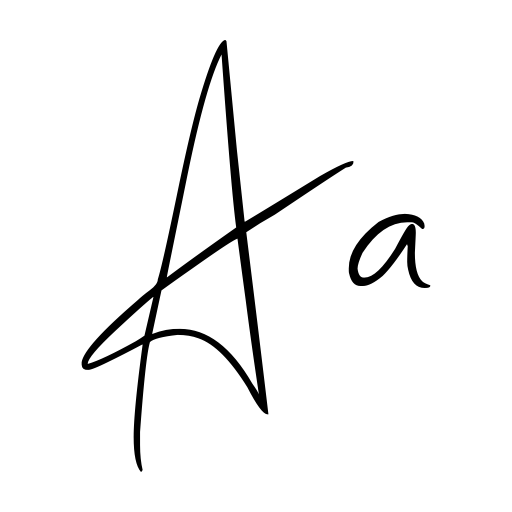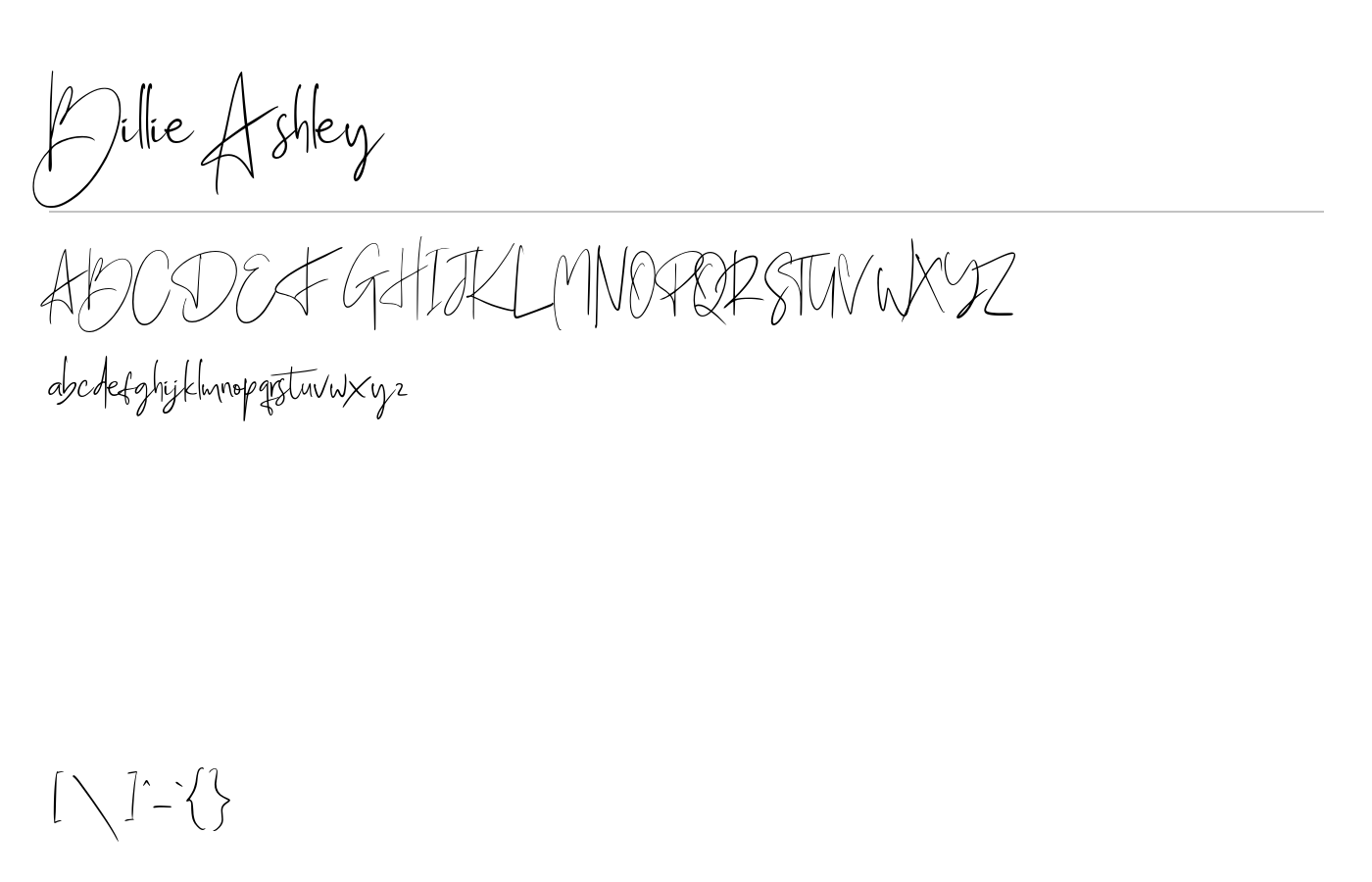
Billie Ashley is a delicate, handwritten script font characterized by its tall, slender letterforms and fine, fluid strokes. Its casual yet elegant style makes it perfect for personal branding, invitations, and creative projects that seek a modern, approachable vibe. The font’s airy, free-flowing design adds a touch of sophistication while maintaining a relaxed and artistic feel.
Billie Ashley Font
About Billie Ashley Font